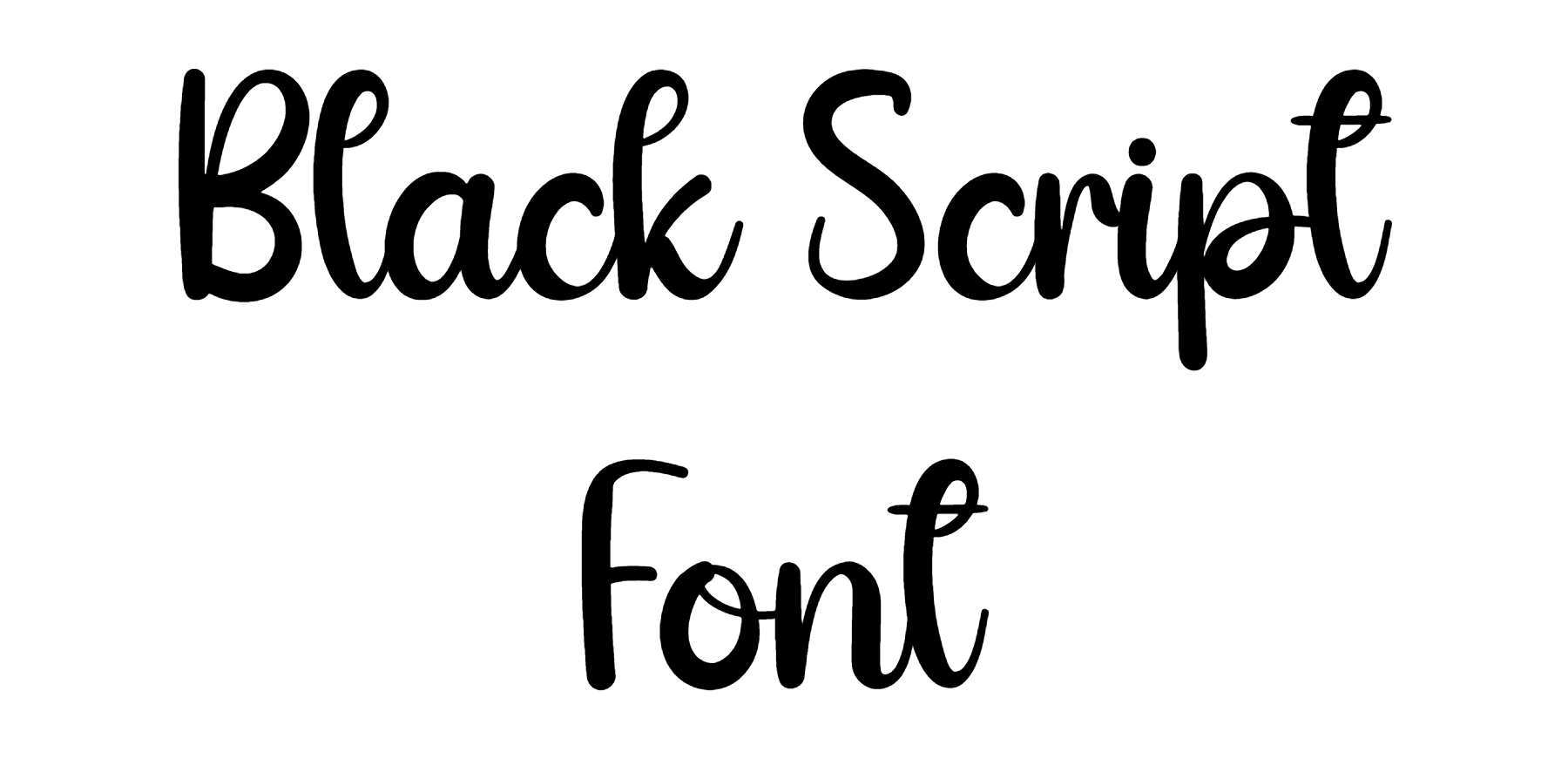
Black Script
Black Script is a handwritten font. It looks like someone actually wrote it by hand: relaxed, friendly and a little imperfect in a good way. You can download it for free and test it with your own words in the preview above.
What You Can Type With Black Script
With complete upper and lowercase letters and all ten digits, Black Script is ready for real wording, not just a single headline. Everyday marks like &, !, ? and @ are there too. Thanks to its accented letters, it also works for Spanish, French, German, Portuguese and Italian, not just English.
Ligatures and Smart Letters in Black Script
Where Black Script Works Best
Think of Black Script for greeting cards, journal pages and friendly social posts. Its lowercase letters are small compared to the capitals, so set it a size or two bigger than usual. The file has no kerning data, so in logos and big titles check pairs like AV, To and Wa and tighten the spacing by hand. Set it a bit larger than you would a normal text font. Handwriting styles lose their charm once they get too small to read comfortably.
Does Black Script have ligatures?
Yes. Black Script has ligatures that turn on by themselves in most design apps and browsers, so you don't need to do anything special.
Does Black Script support accented letters?
Yes. Black Script includes the accented letters needed for Spanish, French, German, Portuguese and Italian, so it works for more than just English.